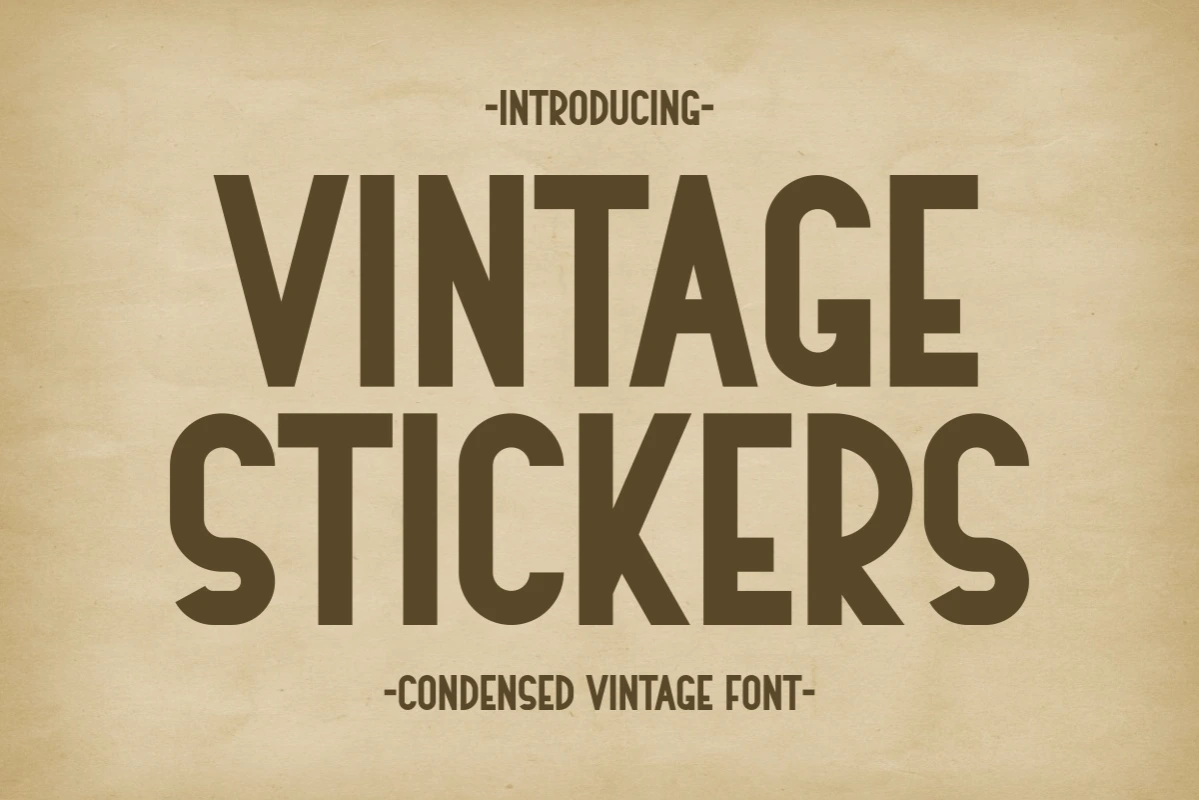
Vintage Stickers - Condensed Vintage Font
Vintage Stickers is a robust and charming Condensed Vintage font designed to evoke classic Americana and nostalgic sticker designs. Its thick, blocky, all-caps structure with subtly rounded edges is perfect for retro logos, merchandise, t-shirt design, and high-impact branding. This typeface delivers an authentic, bold, and instantly recognizable visual identity, making it essential for any project demanding a strong, old-school aesthetic with a clean, contemporary finish.